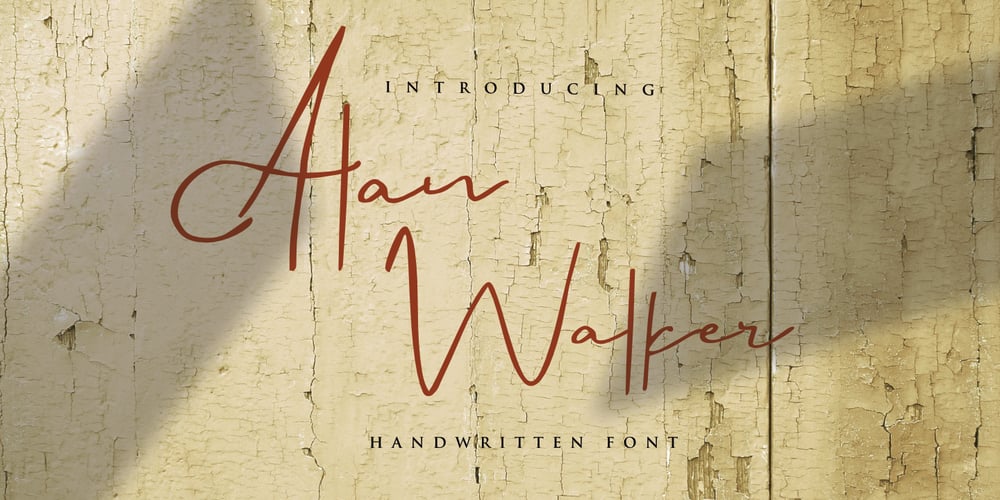
Alan Walker
Alan Walker font
Alan Walker Font Family was designed by Mariyana and published by Goodigital13. Alan Walker contains 1 styles and family package options. Perfectly suited to signature, stationery, logo, typography quotes, magazine or book cover, website header, clothing, branding, packaging design and more.perfectly suited to signature, stationery, logo, typography quotes, magazine or book cover, website header, flyer, clothing, branding, packaging design and more.